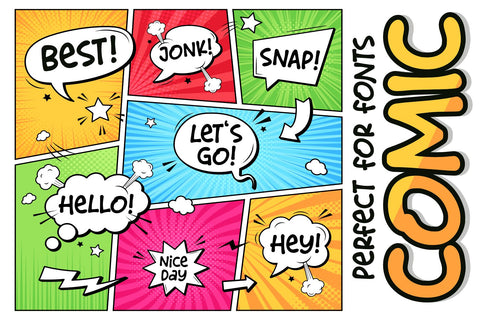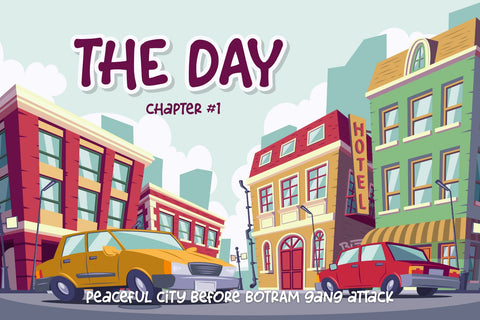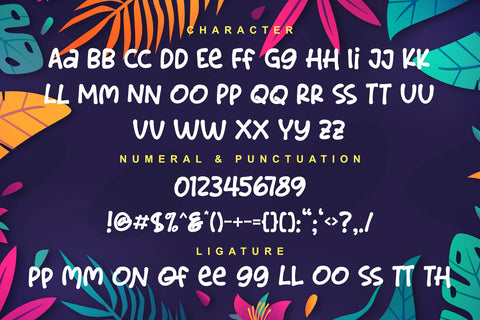
Content Creator - Playful Typeface
Content Creator - Playful Typeface is a comic-themed font that can be used for your design needs. as the title suggests, this font is specifically for content creators to improve the quality of the designs and projects they are working on.
Content Creator is perfect for design, logos, social media, brands, advertising, product design, handwritten quotes, product packaging, headers, posters, merchandise, and other designs.
+ Ligature
+ Multilingual Accent